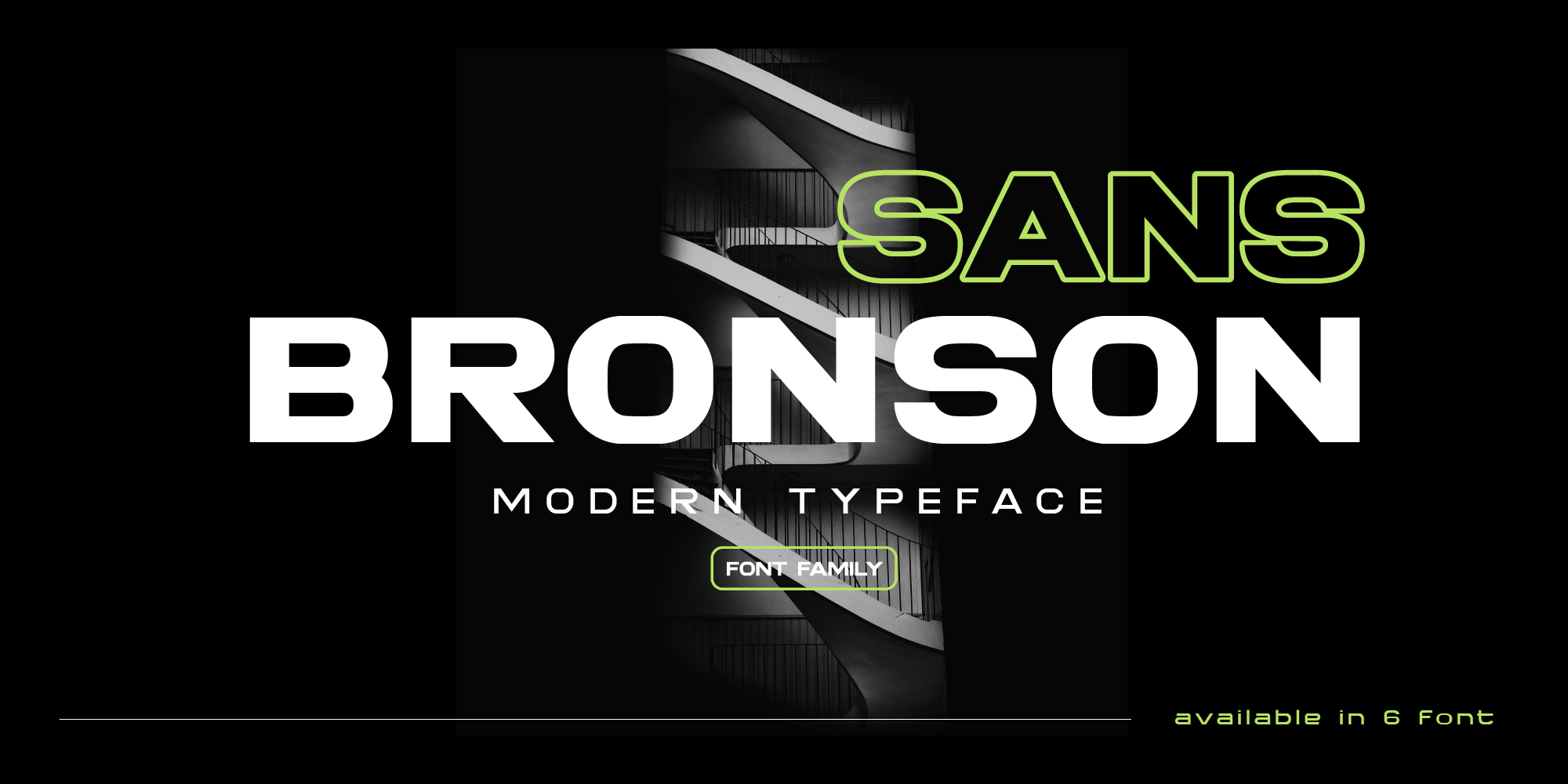
The Bronson Font is an excellent choice for designs that aim for a bold, rugged, and authentically vintage or Americana-inspired aesthetic. Imagine it gracing the signage of a classic American diner, adding a powerful visual punch to a motorcycle club's emblem, or bringing a robust, retro feel to artisanal beer labels. It's also perfectly suited for handcrafted product packaging, vintage-themed event posters, heritage brand logos, and any project where you want to convey a sense of strength, durability, and a timeless, adventurous spirit. Its often sturdy forms and confident presence make it ideal for conveying reliability and a storied past.
What makes the Bronson Font so exciting is its ability to instantly evoke a sense of hard work, honest craftsmanship, and enduring quality. It frequently features strong, well-defined letterforms that might have subtle textures or a slightly weathered appearance, reminiscent of old-school sign painting or classic workwear branding. This font has a powerful and self-assured personality that can instantly elevate your design, making it feel both established and remarkably adventurous. It’s designed to capture attention with its distinctive charm, ensuring your message is not just seen, but resonates with a sense of enduring strength and authentic character.
The Bronson Font family typically might include a range of weights, from a solid regular to a heavy, commanding bold, providing versatile options for different levels of emphasis. Some families might also offer stylistic alternates or unique ligatures that enhance its traditional or adventurous aesthetic. These variations empower designers to create a truly commanding and memorable display, ensuring the Bronson Font Free Download can adapt to a wide array of projects while maintaining its signature, timeless charm.